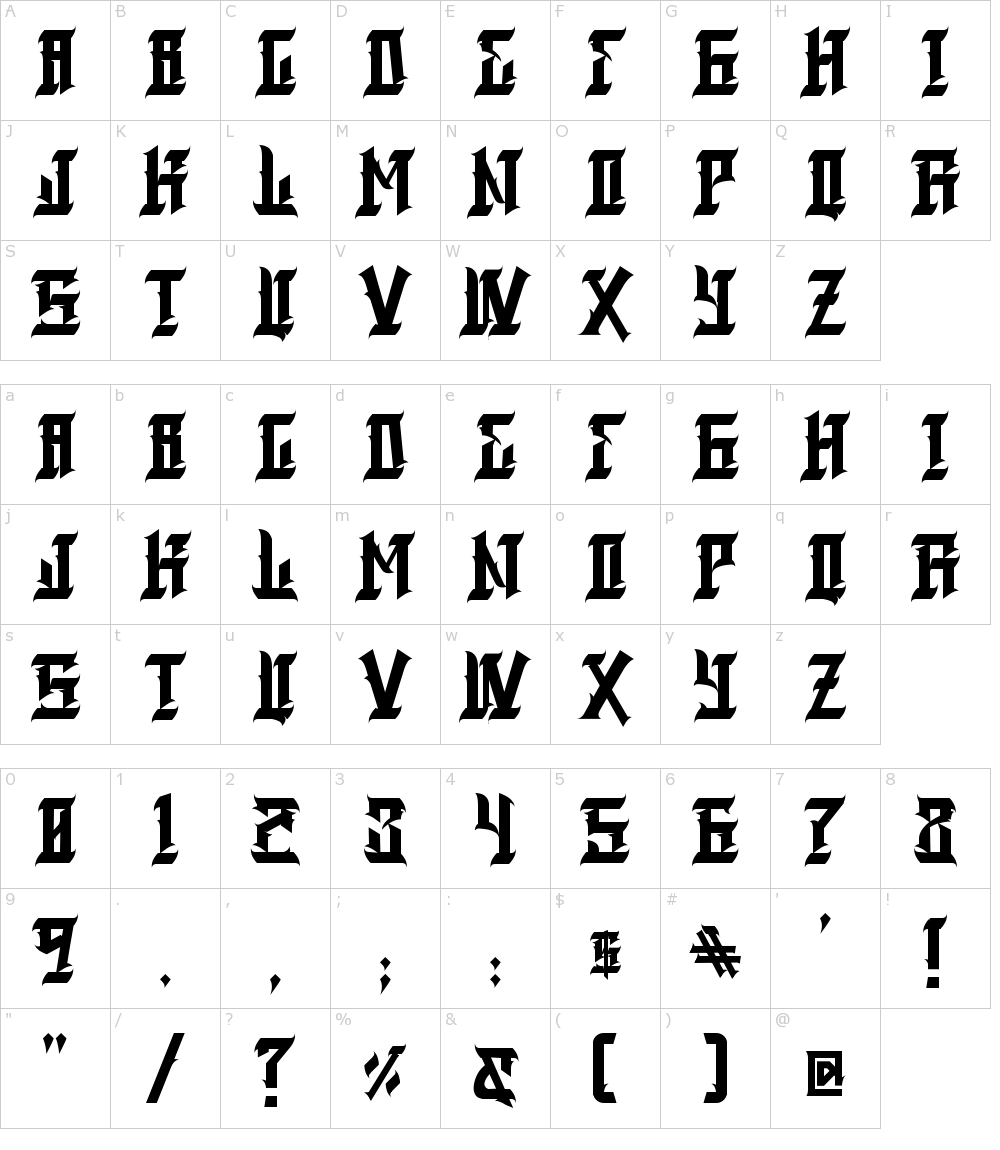
Back To Black Font Generator
Back To Black Font Generator. Font squirrel relies on advertising in order to keep bringing you great new free fonts and to keep making improvements to the web font generator. As the font name implies, blackpink, you will find a font that is not only different in color but also in the text, a combination of the stylistic and geometric font with classic and bold font.
This font was designed by herofonts and you can use it in personal projects. If you are seeing this message, you probably have an ad blocker turned on. Please consider disabling it to see content from our partners.
Back To Black Font Is Widely Famous For Its Pairing Function.